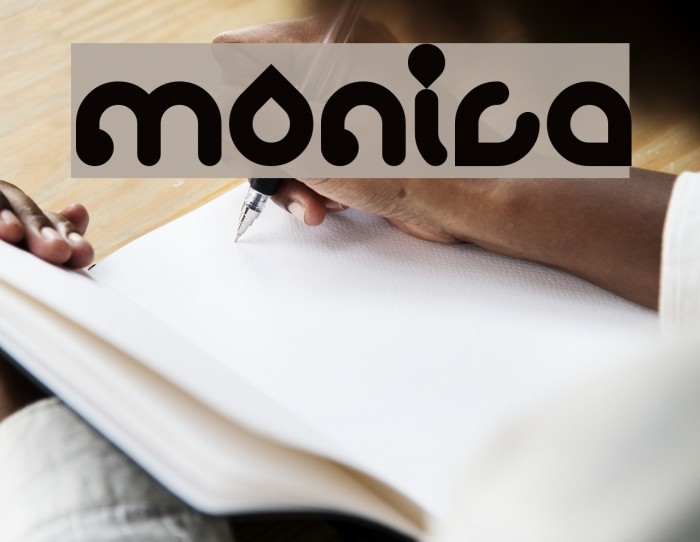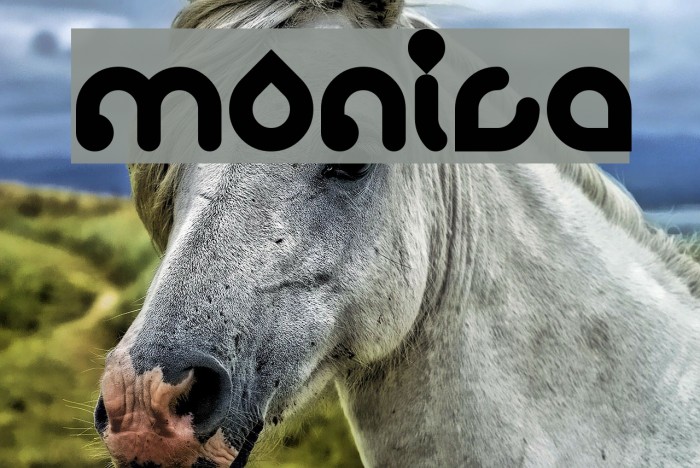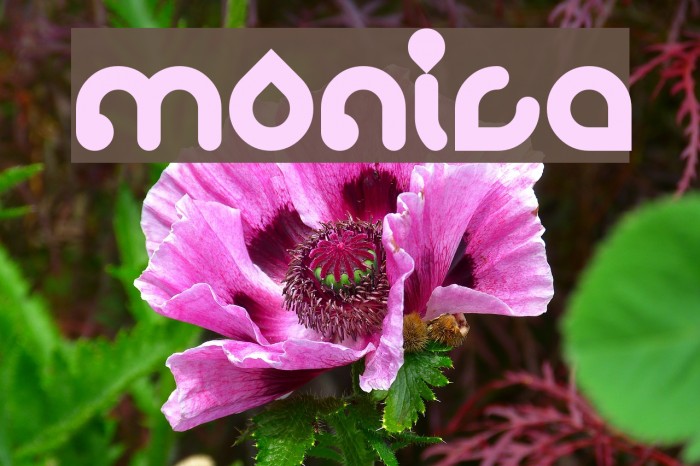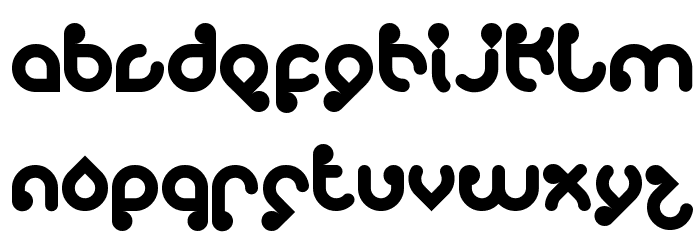
monica Font
This font features a unique and playful design with rounded, bold characters that have a distinct geometric style. Each letter is crafted with smooth curves and consistent thickness, giving it a cohesive and modern appearance. The font's rounded terminals and uniform stroke width contribute to its friendly and approachable look. It maintains a consistent baseline, which enhances readability while adding a touch of whimsy. The overall design is both eye-catching and versatile, making it suitable for a variety of creative projects.
A bold, rounded font with a playful geometric style.
• Proposed Projects: Ideal for children's books, playful branding, creative posters, and modern digital designs.
• Category: Decorative/Display
• Bold: Yes
• Italic: No
• Weight: Bold
• Width: Normal
• Character Spacing: Normal
• Contrast: Low
• Overall Style: Modern
• Use Case: Logos, Headlines, Posters